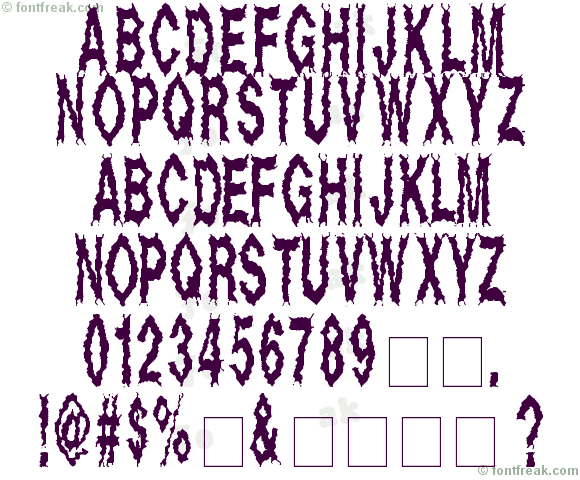
Dead Alive
The Dead Alive font by Spork Thug Typography is a distinctive display typeface that captures a unique blend of whimsy and darkness. This decorative font features irregular, jagged edges that evoke a sense of eerie playfulness, making it perfect for projects that seek to blend the macabre with creativity. Characterized by its bold stroke weight and high contrast, the letters appear almost as if they are in a state of decay, adding a dynamic visual element to any design.
The spacing between the letters is intentionally tight, enhancing the font's dramatic effect and ensuring that it captures attention in any setting. The design incorporates decorative elements that mimic organic forms, contributing to its lively yet unsettling aesthetic. This makes the Dead Alive font particularly suitable for a variety of creative applications, such as Halloween-themed invitations, horror movie posters, and graphic novels. It can also be effectively utilized in merchandise designs, like T-shirts and stickers, targeting audiences who appreciate alternative and quirky art styles.
Graphic designers, content creators, and small business owners looking to make a statement will find this font an invaluable tool in their repertoire. Its unique character allows for creative freedom while maintaining an eye-catching presence that resonates with viewers. The Dead Alive font free download offers an accessible way for creatives to elevate their projects without compromising on style or quality.
In a saturated market of fonts, Dead Alive stands out for its bold personality and versatility. Its ability to convey a playful yet eerie vibe makes it an excellent choice for those looking to push the boundaries of traditional typography. Whether for digital designs or printed materials, this font brings an unmistakable flair that is sure to leave a lasting impression.